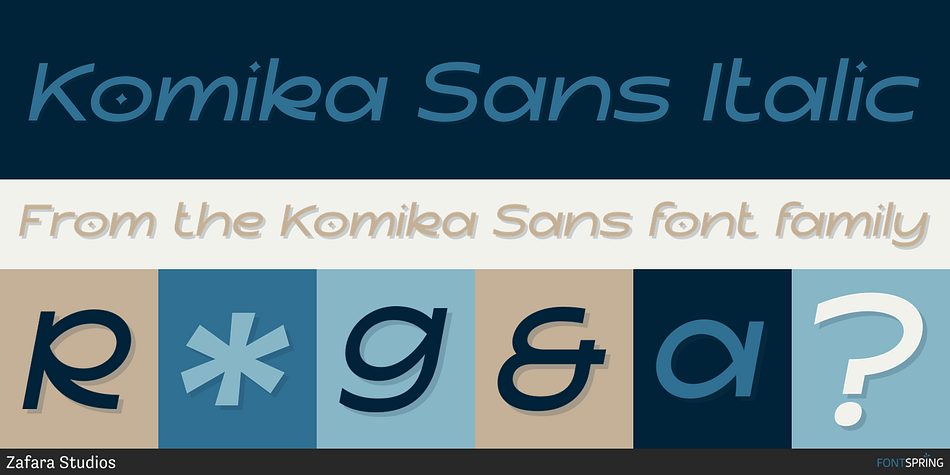
Komika Sans Italic
Komika Sans is a sans serif font family. This typeface has twelve styles and was published by Zafara Studios.
Komika Sans is a geometric modern wide sans serif family, with 6 weights and 6 italics, which can be easily accessed from the OpenType menu. This font can be used for headlines, titles, logotypes, magazines, and other types of text that need to be visible and easy to read.
- 194 glyphs: uppercase, lowercase, ligature, multilingual, numbers, punctuation
- 6 weight: extralight, light, regular, semibold, bold, outline
- 6 italics